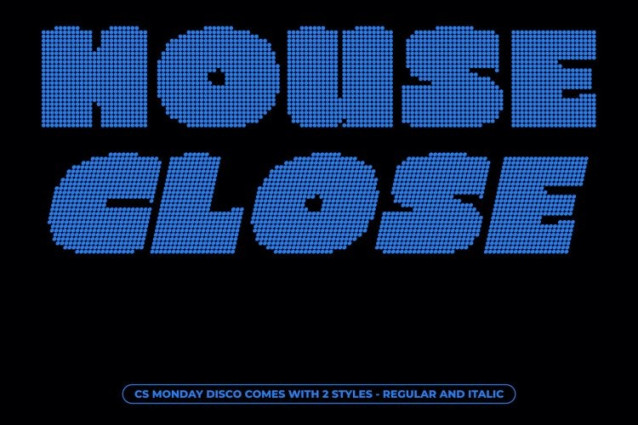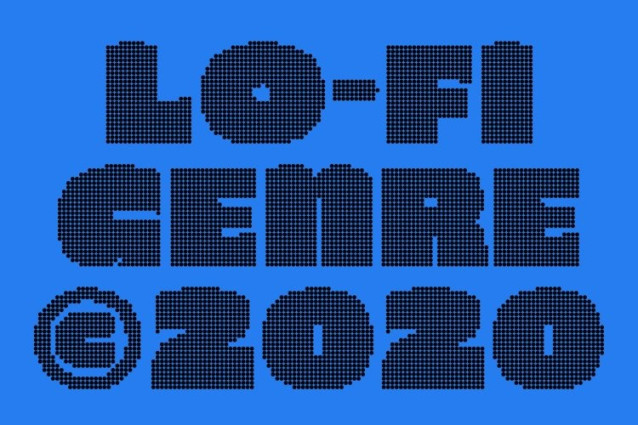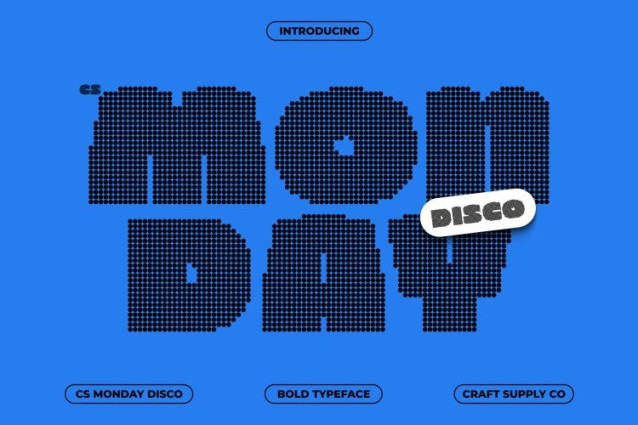
CS Monday Disco Font
CS Monday Disco Font is a modern sans serif display font defined by its bold weight, clean shapes, and confident structure now enhanced with a lively disco-inspired dotted texture. The strong letterforms maintain their modern clarity while the sparkling dot pattern adds rhythm and visual excitement, transforming the font into a vibrant display typeface that instantly grabs attention.
Funky Character with Shimmering Personality
While bold and professional at its core, this font carries a playful funky edge. The disco-style dots introduce a festive sparkle that brings personality and movement to the typography. This combination of structured geometry and decorative energy creates a typeface that feels both polished and creatively expressive.
Versatile for Creative Display Projects
Perfect for logos, posters, branding, packaging, and digital graphics, this font adapts easily to projects that need bold visual presence. Its strong shapes ensure excellent readability in headlines and display text, while the dotted texture adds a distinctive style that keeps designs lively and memorable.
Confident Impact with Modern Energy
This font merges strength, modernity, and playful brilliance into a striking design tool. Its bold strokes and shimmering disco character help typography stand out with confidence, making it ideal for creatives who want their designs to feel dynamic, stylish, and full of personality.